30 Best Gothic Tattoo Fonts for Lettering & Logo Design in 2026
gothic tattoo fonts bring a timeless, dramatic edge to both body art and branding. In this curated collection of 30 styles, you’ll find blackletter, Old English, medieval scripts, and modern gothic-inspired lettering tailored for tattoos, logos, and apparel.
Whether you need heavy, textured lettering for a back piece or refined calligraphic strokes for a wrist tattoo, these fonts cover a wide range of aesthetics. Read on for selection tips, sizing and kerning advice, and licensing reminders so your chosen typeface performs well in ink and print.
1. Aghony Font
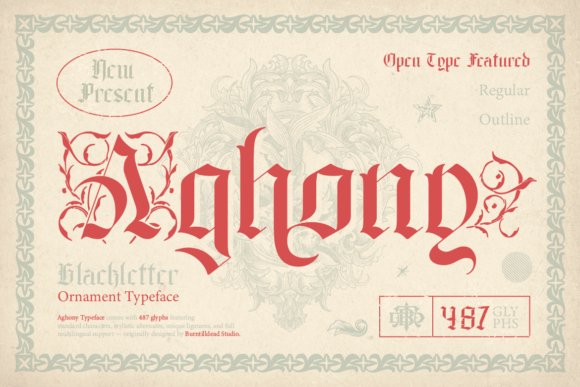
Aghony is an ornamental blackletter that marries heavy, angular strokes with delicate filigree and subtle swashes. Its letterforms echo medieval manuscripts while introducing contemporary contrast and rhythm, producing an atmosphere that feels both antique and immediate – a natural pick for designers who want dramatic, inked effects. This font is an excellent addition to collections of gothic tattoo fonts because it balances bold presence with decorative nuance.
The family ships in Regular and Outline styles; the Regular delivers solid, high-impact fills for posters or album covers, while the Outline offers airy, tattoo-friendly shapes that read well at large sizes without overpowering surrounding elements. Kerning has been tuned for display use, and the set includes stylistic alternates and discretionary ligatures to customize word-level ornamentation.
Use Aghony for heavy display headlines, occult-themed packaging, metal and hardcore artwork, or stylized logo marks where a historic tone is needed. Its detailed terminals and alternate glyphs make it easy to create bespoke wordmarks and stencil-ready artwork for tattoo flash or large-format signage without losing visual clarity.
My Recommendation: I’d reach for Aghony when I need a commanding, medieval mood that still feels contemporary – for example, album covers, poster headlines, or gothic brand identities. Its alternates let you personalize initials and lockups quickly, and the Outline version is great when you want a lighter tattoo-like trace. Overall, it’s ideal for projects that demand ornamentation without sacrificing legibility.
2. Fly Feather Font
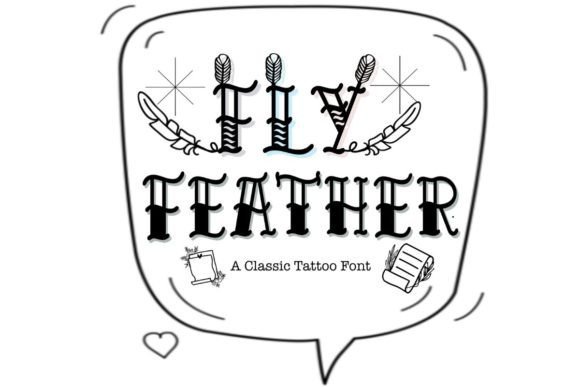
Fly Feather blends a classic tattoo lettering spirit with a quirky serif sensibility, embellished by feathered ornaments that give each character a hand-crafted charm. The design reads casual and approachable rather than austere, making it suitable for creative projects that need personality rather than pure historic replication. Decorative terminals and playful serifs make it feel like a stamped or hand-drawn mark.
At display sizes the feather motifs become focal points, perfect for custom logos, apparel prints, signage, and illustrative badges. The font performs well for branding that wants a vintage or retro-tattoo vibe without diving into heavy blackletter forms – think indie barbershops, boutique labels, and lifestyle goods.
Pair Fly Feather with a clean geometric sans for body text to keep compositions legible, or combine it with subtle texture treatments to enhance its crafted look. Because of its ornamentation, it shines in short phrases and monograms where each decorative flourish can be appreciated.
My Recommendation: I’d choose Fly Feather when a project needs charm and a handcrafted tattoo aesthetic without the weight of Old English styles. It’s fantastic for small-batch product labels, shop signage, and apparel where ornamentation reads as quality. Use it for short headlines or initials so the feather details remain clear and impactful.
3. Rawuh Font
Rawuh is a striking display blackletter that emphasizes verticality and narrow counters, delivering a modernized gothic attitude. Its sharp terminals and compact proportions create a dense, intense texture ideal for attention-grabbing wordmarks. The design leans toward minimal ornamentation, favoring sculpted strokes that read clearly in bold treatments.
This condensed approach works particularly well for packaging labels, band logos, and signage where horizontal space is limited but a powerful typographic signature is required. The face retains legibility at medium display sizes and translates well into vector stencils or carved signage due to its decisive stroke endings.
Rawuh pairs nicely with understated sans or slab serifs that let the blackletter take center stage, and its tight spacing encourages creative use of ligatures or custom letter combinations for monograms. It’s an excellent choice for designers seeking a contemporary gothic look without excessive flourishes.
My Recommendation: I’d pick Rawuh for projects that need a compact, aggressive blackletter voice-think labels, posters, and brand marks that must command space without sprawling. Its condensed form makes it efficient for logotypes and tight layouts, and the bold, clean strokes adapt well to both print and digital applications. Use it when you want a modern gothic presence rather than ornate historic replication.
These 30 gothic tattoo fonts offer a comprehensive starting point for designers and tattoo artists seeking bold, characterful lettering. From traditional blackletter to contemporary gothic calligraphy, each style can be adapted for scale, placement, and stencil work.
Before finalizing a tattoo, test your chosen font at actual size, adjust spacing for readability, and verify licensing for commercial use. With the right font and preparation, you can achieve striking, long-lasting lettering in 2026 and beyond.